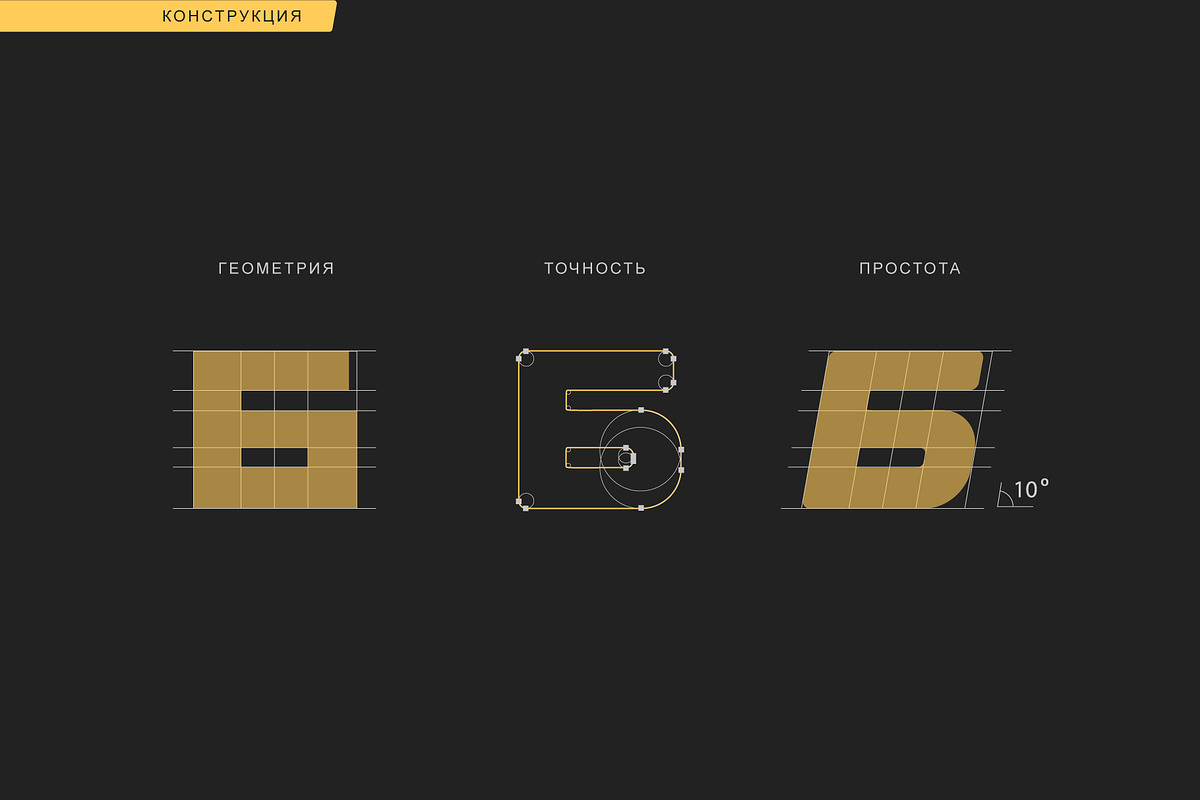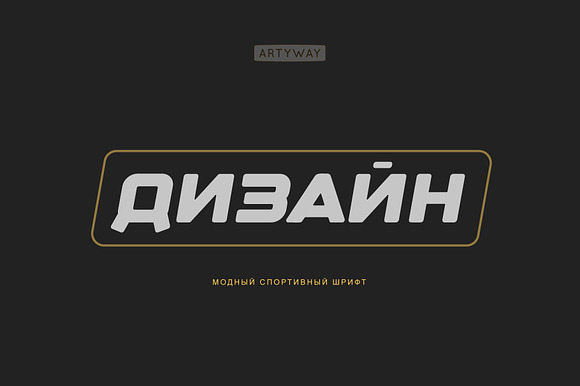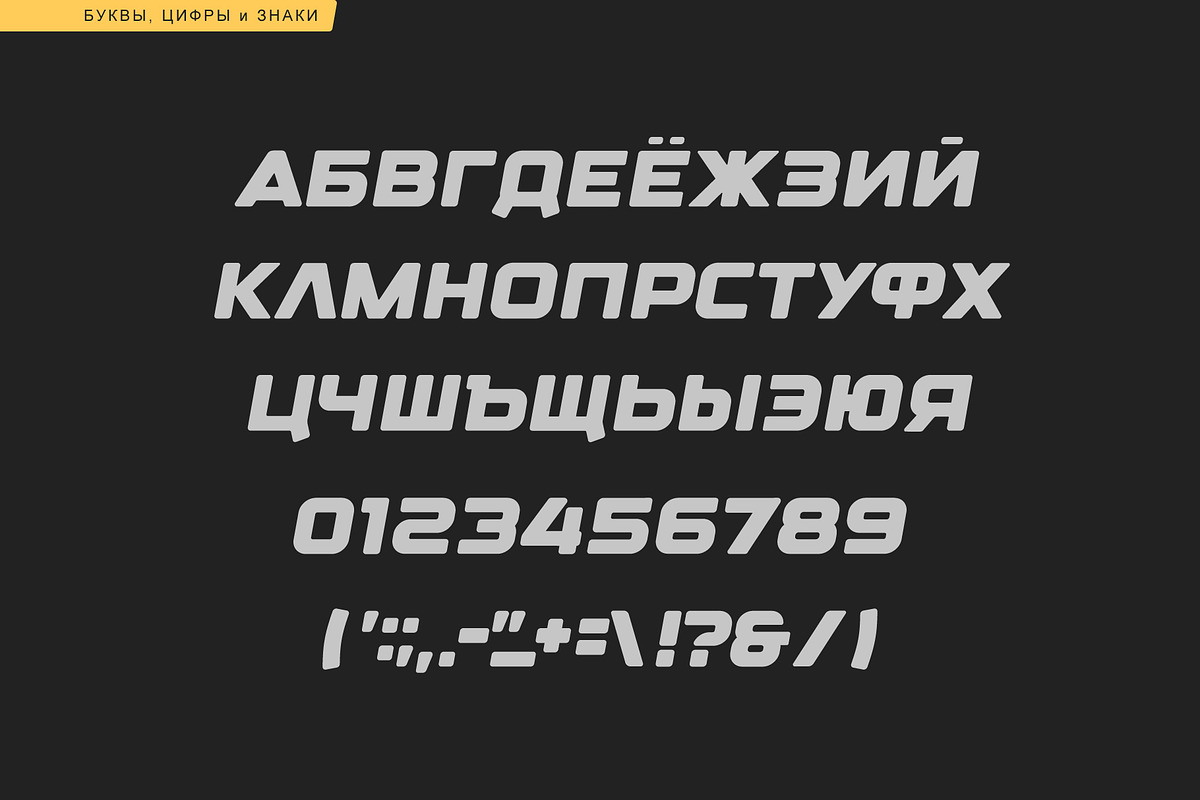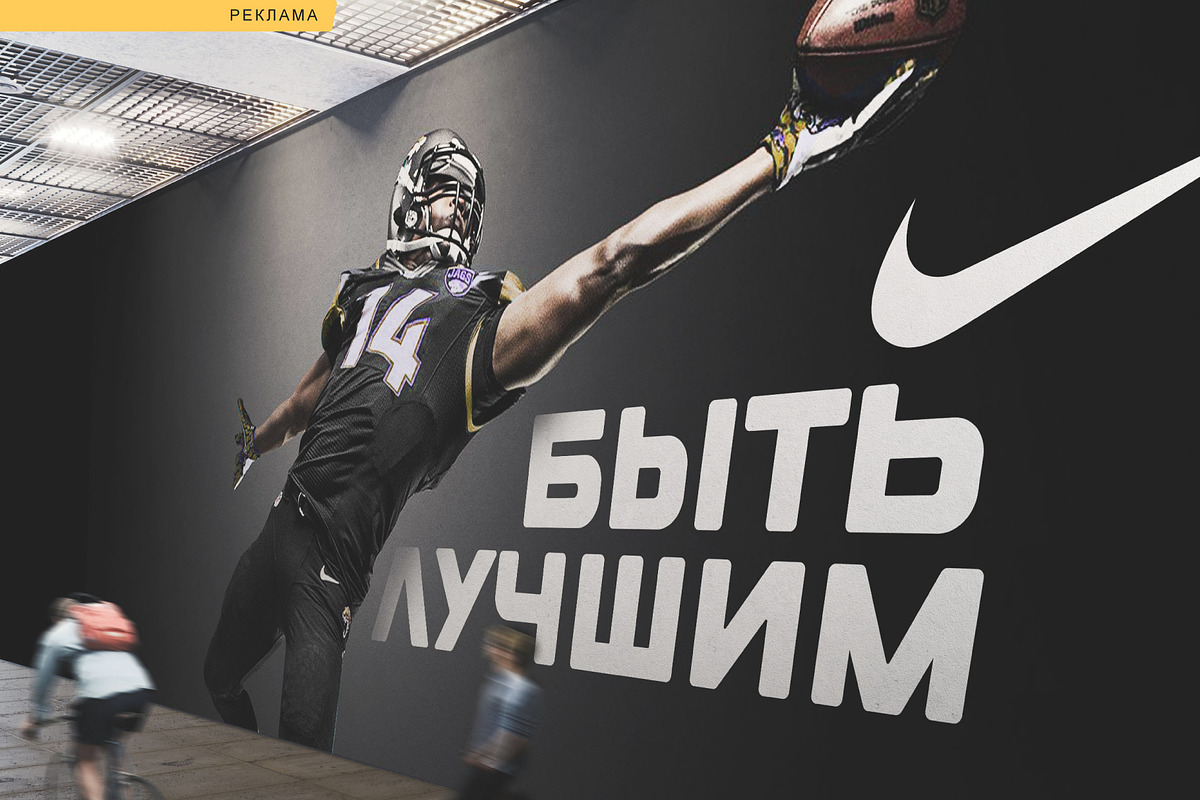
Cyrillic Sport Font Design
I suggest you to pay attention to the "DesignCyr" cyrillic font.
It's bold, with softened corners and some slope for dynamic effect. "Design" font has a unique charm and easy visual readability, so it's perfect for headlines, whether for sports events, automotive posters, logo or monograms designs.